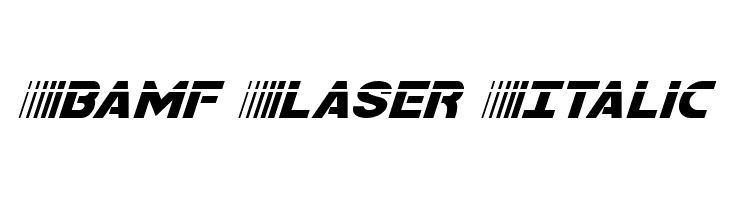
A classic typewriter-style font with medium weight and variable width.
A geometric and precise font with sharp, angular shapes.
A geometric, industrial font with sharp, precise lines and uniform stroke width.
Bold, rounded sans-serif font with playful and condensed letterforms.
A bold, high-contrast serif font with dramatic and authoritative style.
A pixelated, retro-style font with a blocky, geometric appearance.
A casual, handwritten font with a playful and informal style.
A bold, decorative font with artistic flourishes and playful twists.
A rugged, hand-drawn font with bold, textured strokes.
A dynamic, textured handwritten font with expressive brush-like strokes.
A bold, distressed font with a modern, industrial aesthetic.
A lively handwritten script with fluid, connected strokes and medium contrast.
A modern, geometric sans-serif font with clean lines and uniform strokes.
A modern, geometric sans-serif font with bold, clean lines.
A bold, italicized font with a modern and sleek design.
A modern, bold italic sans-serif font with a sleek and dynamic style.
A modern, geometric typeface with bold, uniform strokes and clean lines.
A modern, bold, and italic font with a sleek and dynamic appearance.
A sleek, modern italic font with clean lines and consistent stroke width.
A modern, geometric sans-serif font with clean lines and balanced spacing.
A clean, geometric font with thin lines and a modern aesthetic.
A modern, light italic font with elegant and fluid design.
A modern, light, and italic font with clean lines and elegant curves.
A modern sans-serif font with geometric shapes and uniform strokes.
A sleek, modern italic font with consistent stroke width and elegant curvature.
Bold, expressive script with brush-like strokes.
A playful handwritten font with a casual and friendly style.
A bold, geometric font with sharp angles and a modern aesthetic.
A bold, geometric font with a modern, angular design.
A geometric, angular font with a modern, digital aesthetic.